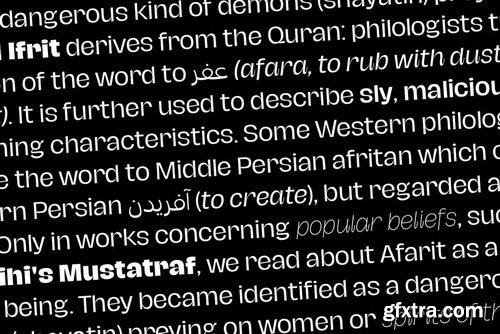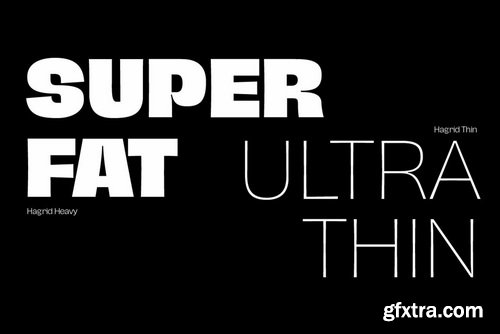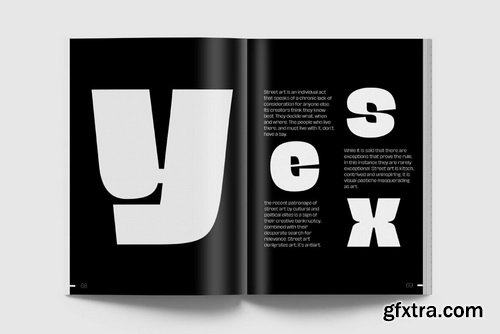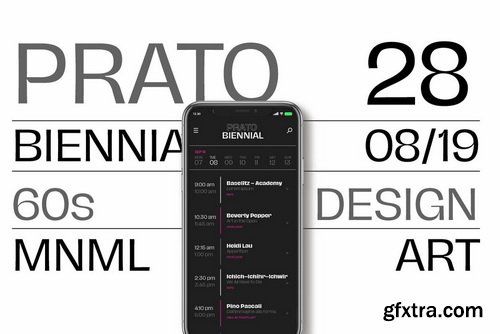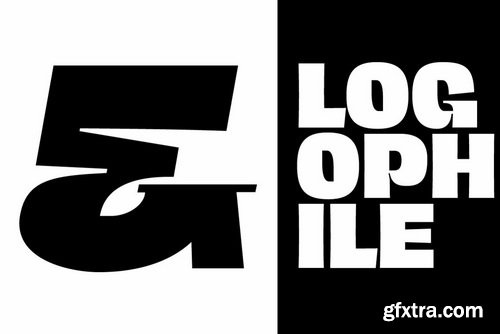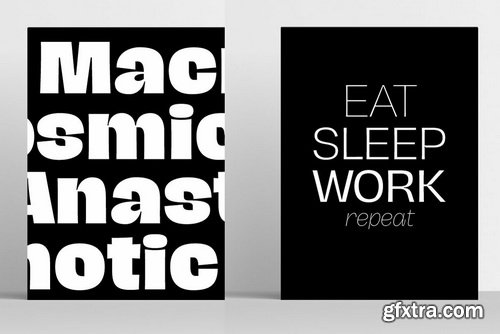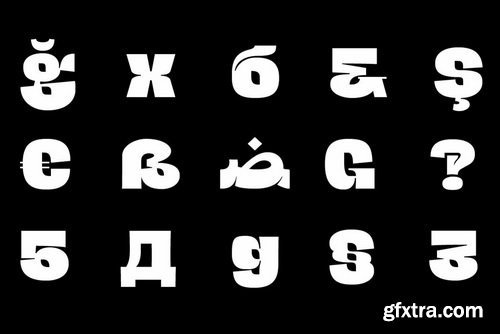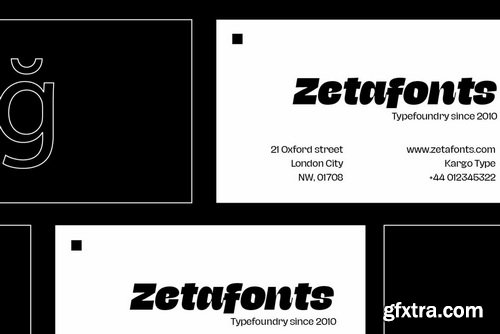
Hagrid is a typeface designed for editorial & display use, bringing dynamism to the printed and digital page thanks to its extreme contrast and unique details. It has been developed in a range of six display weights ranging from the monolinear and more traditional thin to the expressive heavy weight. For better readability in small sizes and on the web, a companion text family has been developed, with a slightly different selection of weights, wider metrics, and fine adjustments to keep the dynamic expressivity of the design without sacrificing legibility. This is evident in the design of italics: while the display italics sport a cursive feel with calligraphic terminals to lowercase letters, the text design is more restrained, with a more classical geometric grotesque slanted look.